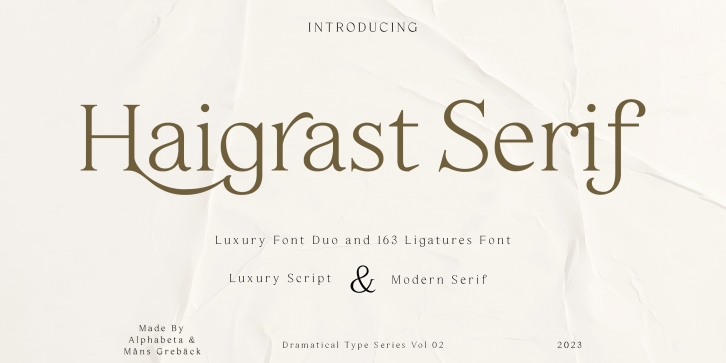
Haigrast Serif is a font that combines classic and modern design elements to create a look that is both traditionally tasteful and fashion-forward.
The sharp, crisp lines and swash alternates in addition to the sophisticated appearance are what make Haigrast Serif such a versatile font, that makes your work stand out.